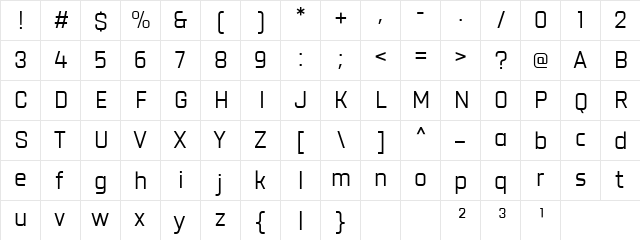
Revx Neue Demo Regular
Design Context for Revx Neue Demo Typeface
Revx Neue Demo is a composed and adaptable typeface that performs quietly and consistently across a wide range of design contexts.